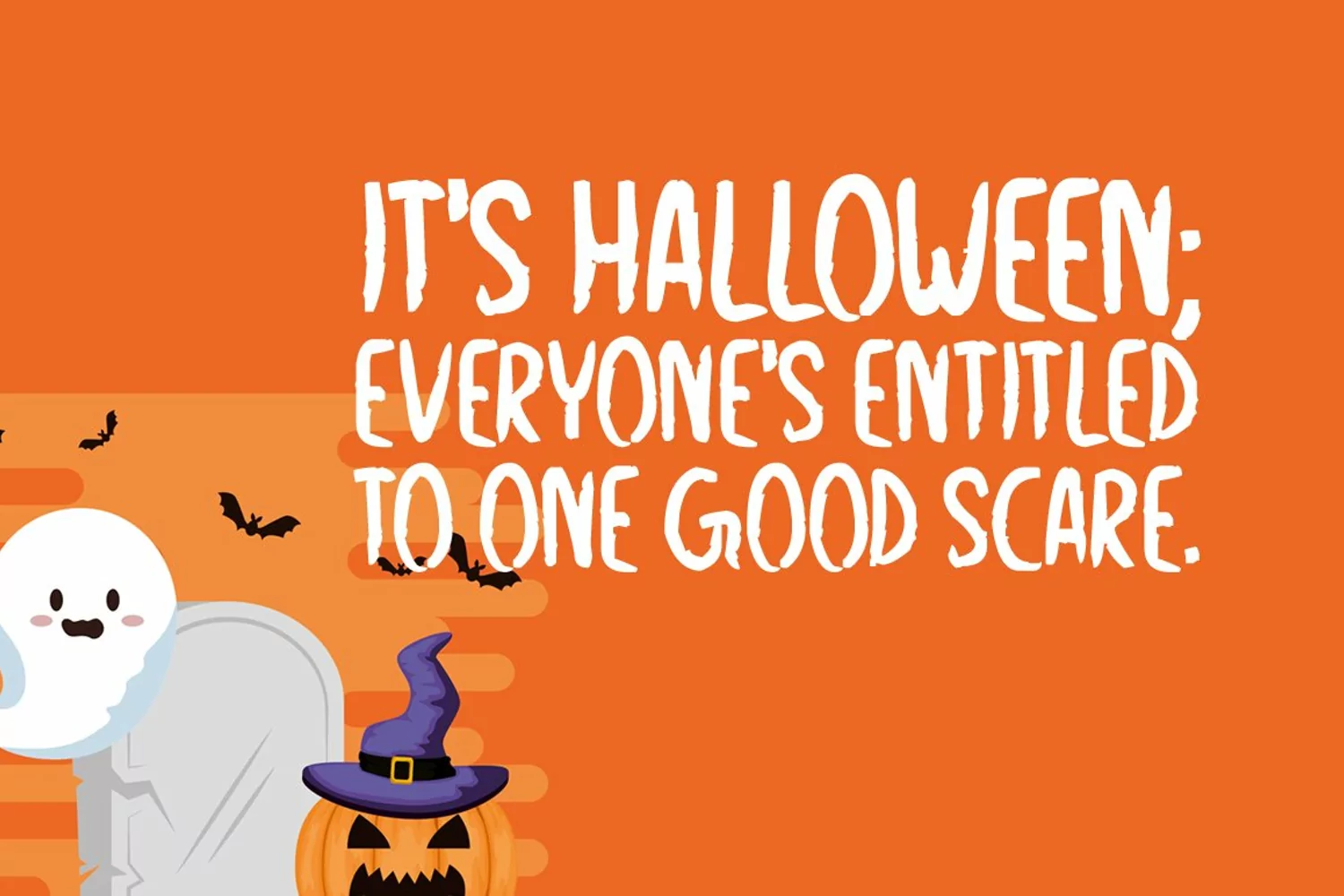
Halloween Occurrence
Introducing Halloween Occurrence!
Halloween Occurrence is a brand new handwritten Halloween font. Halloween Occurrence is perfectly suited for stationery, logos, t-shirt, paper, print design, website header, photo frame, flyer, music cover, poster, image slider, and much more.